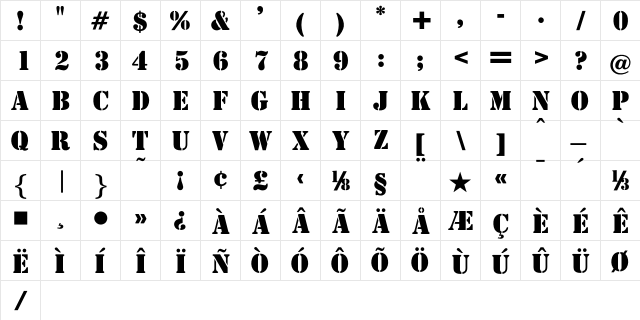
OPTIStencil-Bold Regular
Design Context for OPTIStencil-Bold Typeface
OPTIStencil-Bold borrows the utilitarian aesthetic of stencil lettering, with its characteristic cutaways and no-frills construction lending an industrial edge. The heavy weight commands attention and anchors typographic hierarchies.
A strong choice for packaging that needs edge, warehouse aesthetics, and rough-and-ready visual identities.
Pro Tip: Use OPTIStencil-Bold at large sizes on packaging, posters, or apparel where the stencil cutaways read clearly. Avoid small sizes where those gaps become visual noise.